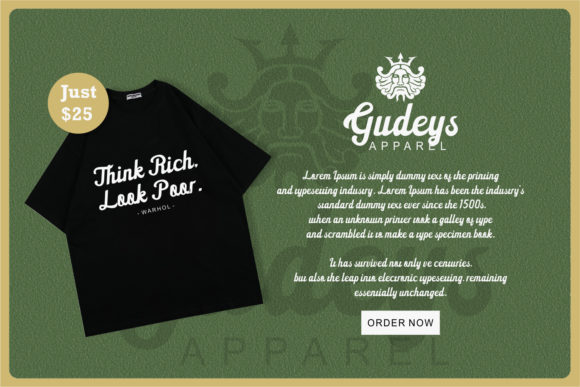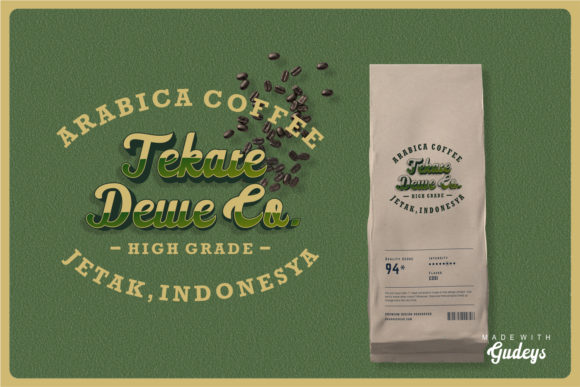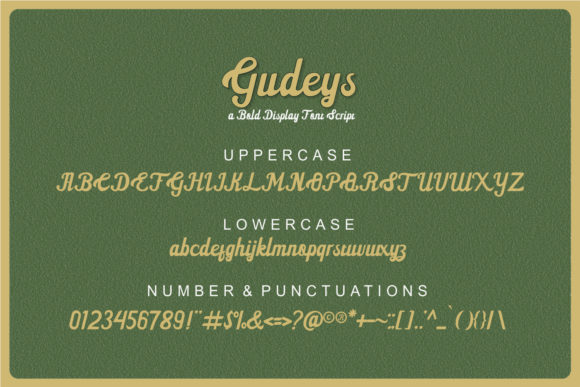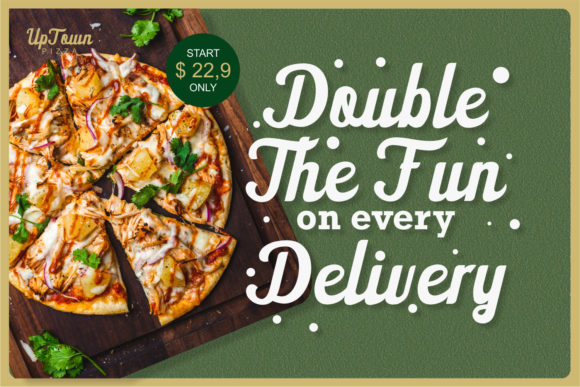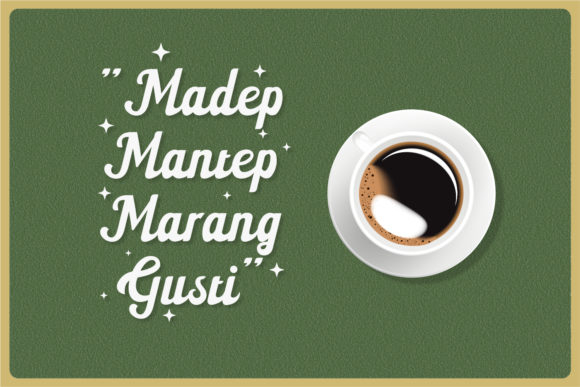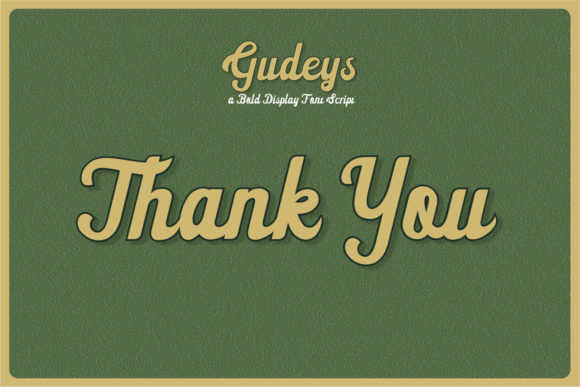
Gudeys Font: Elevate Your Designs with a Vintage Flair
In the world of typography, fonts play a crucial role in conveying the tone and personality of a design. For designers and crafters looking to add a touch of nostalgia and sophistication to their work, Gudeys Font is an excellent choice. This vintage-styled and assertive display font is specifically crafted to give your headlines and logotype projects a stylish touch, making it perfect for those seeking to make a statement.
The Characteristics of Gudeys Font
Gudeys Font reads as strong, confident, and dynamic, making it an ideal choice for designers who want to create a lasting impression. Its vintage flair adds a nostalgic character to your designs, transporting your audience back to a bygone era. The font’s assertive nature ensures that your message is conveyed with clarity and conviction, making it perfect for headlines, logotypes, and other display purposes.
What Makes Gudeys Font Stand Out
So, what sets Gudeys Font apart from other fonts in the market? Here are a few key features that make it a standout choice:
- Vintage Flair: Gudeys Font boasts a unique vintage style that adds a touch of nostalgia to your designs. Its classic look and feel make it perfect for projects that require a retro aesthetic.
- Assertive and Confident: The font’s assertive nature ensures that your message is conveyed with clarity and conviction. Its confident tone makes it perfect for headlines and logotypes that require a strong presence.
- Dynamic and Stylish: Gudeys Font is crafted to give your designs a dynamic and stylish touch. Its unique character set ensures that your work stands out from the crowd.
Who Can Benefit from Using Gudeys Font
Gudeys Font is an excellent choice for a wide range of designers and crafters, including:
- Graphic Designers: Whether you’re working on a branding project, creating a logo, or designing a brochure, Gudeys Font is an excellent choice.
- Advertising Agencies: If you’re looking to create eye-catching headlines and advertisements, Gudeys Font is the perfect solution.
- Crafters and Makers: For crafters and makers looking to add a personal touch to their work, Gudeys Font is an excellent choice for creating unique and stylish designs.
Tips for Using Gudeys Font Effectively
To get the most out of Gudeys Font, here are a few tips to keep in mind:
- Use it for Headlines and Logotypes: Gudeys Font is specifically designed for display purposes, making it perfect for headlines and logotypes.
- Experiment with Colors and Textures: To add an extra layer of depth to your designs, experiment with different colors and textures.
- Pair it with Other Fonts: For added visual interest, pair Gudeys Font with other fonts to create a unique and stylish contrast.
In conclusion, Gudeys Font is an excellent choice for designers and crafters looking to add a touch of nostalgia and sophistication to their work. Its vintage flair, assertive nature, and dynamic style make it perfect for a wide range of design projects. Whether you’re a graphic designer, advertising agency, or crafter, Gudeys Font is sure to elevate your designs and make a lasting impression.